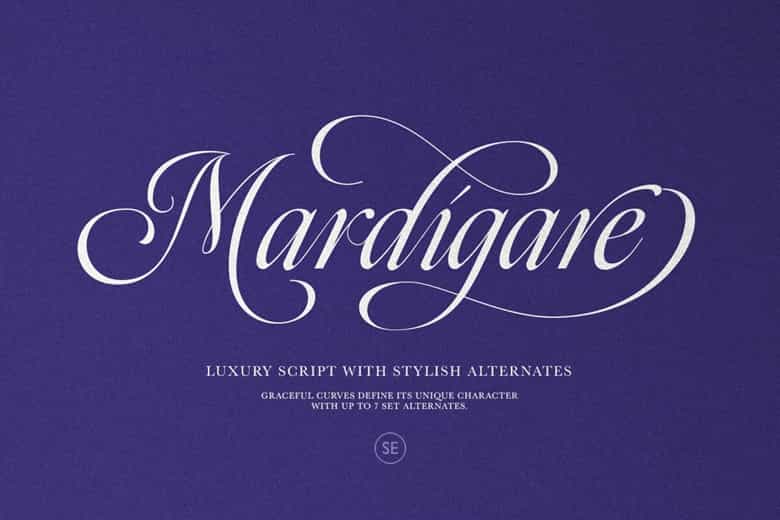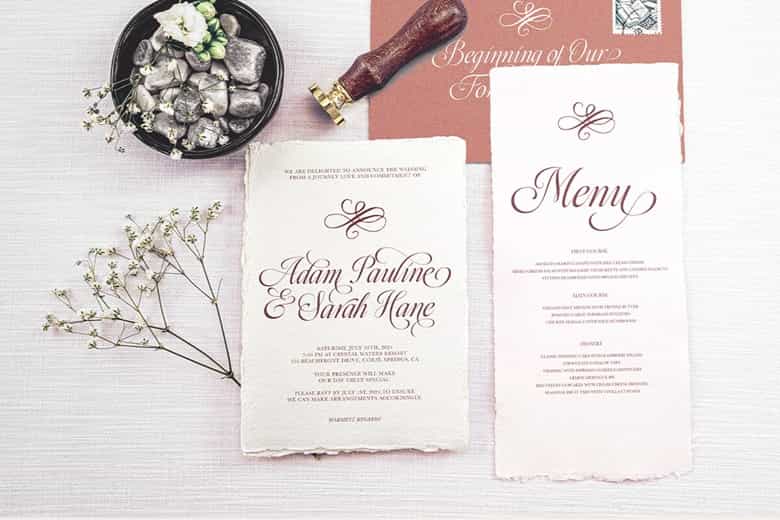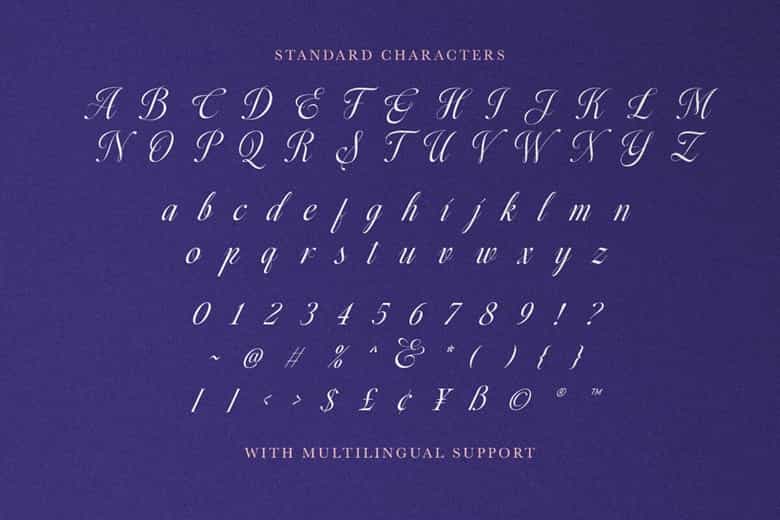
Mardigare is a stylish elegant script calligraphy font with modern and stunning alternates. This font can be used in branding, logo, quotes, and poster. This font is also suitable for making wedding invitations.